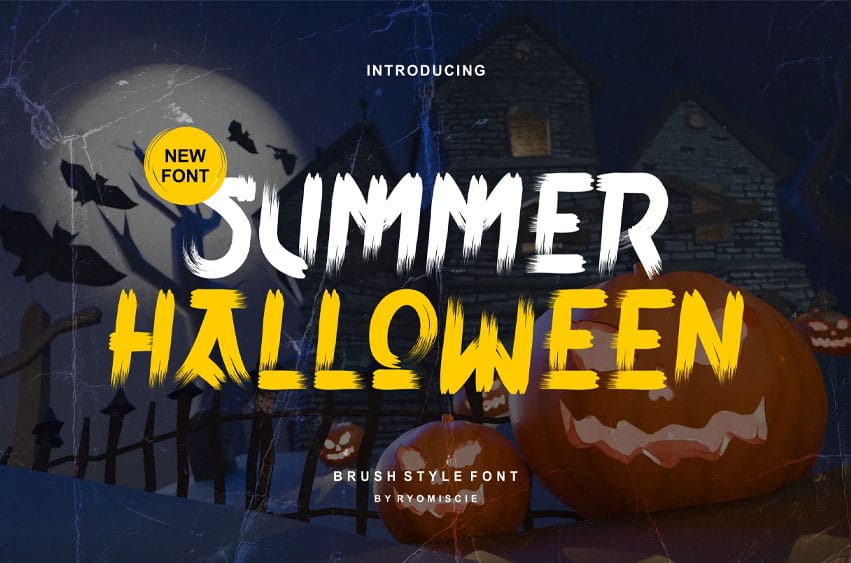
Summer Halloween Font Brush Style Font is a regular and authentic display font. The font is suitable for any branding project like logo, esport, and many more.